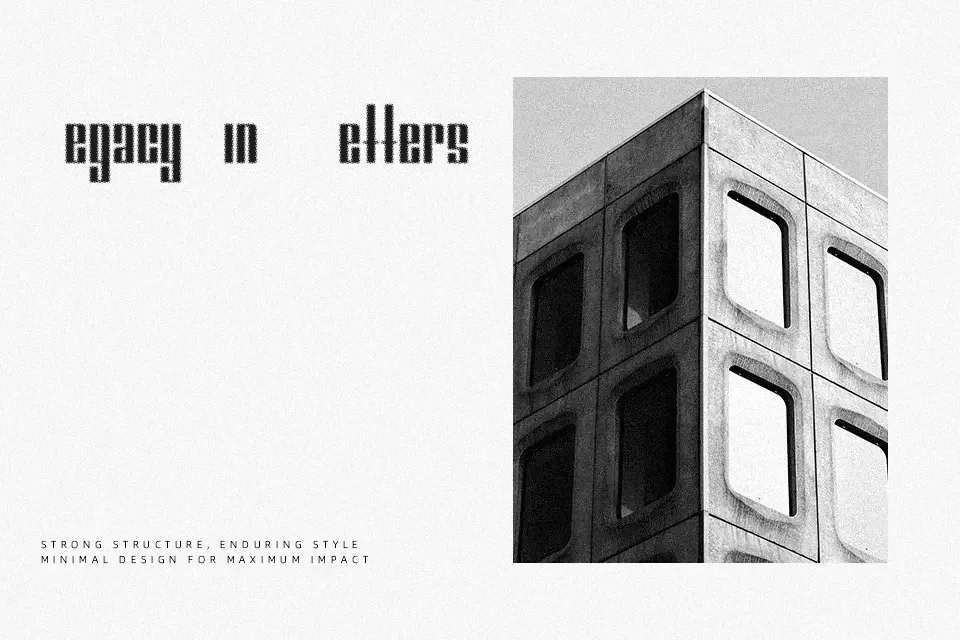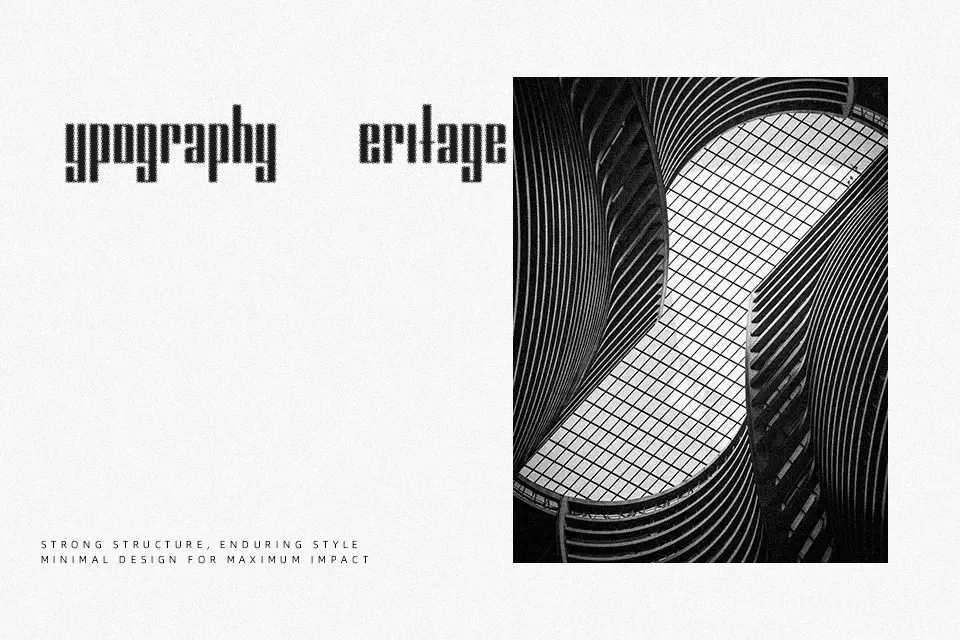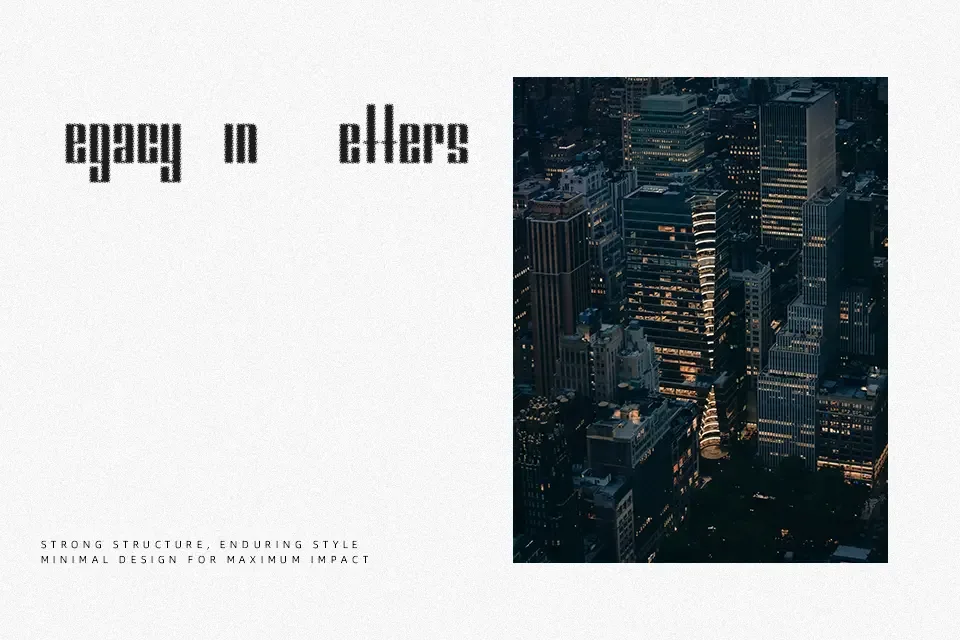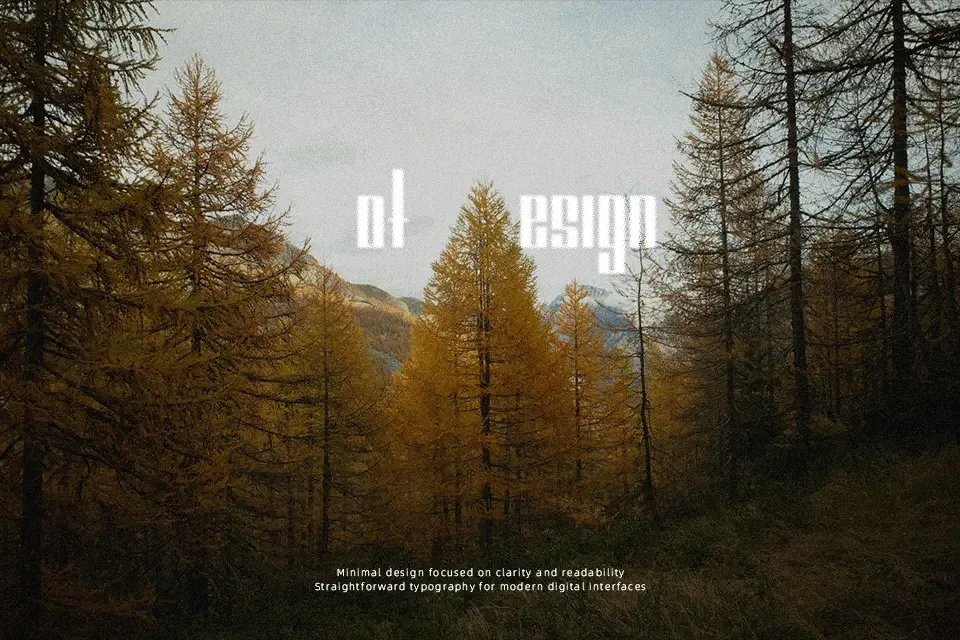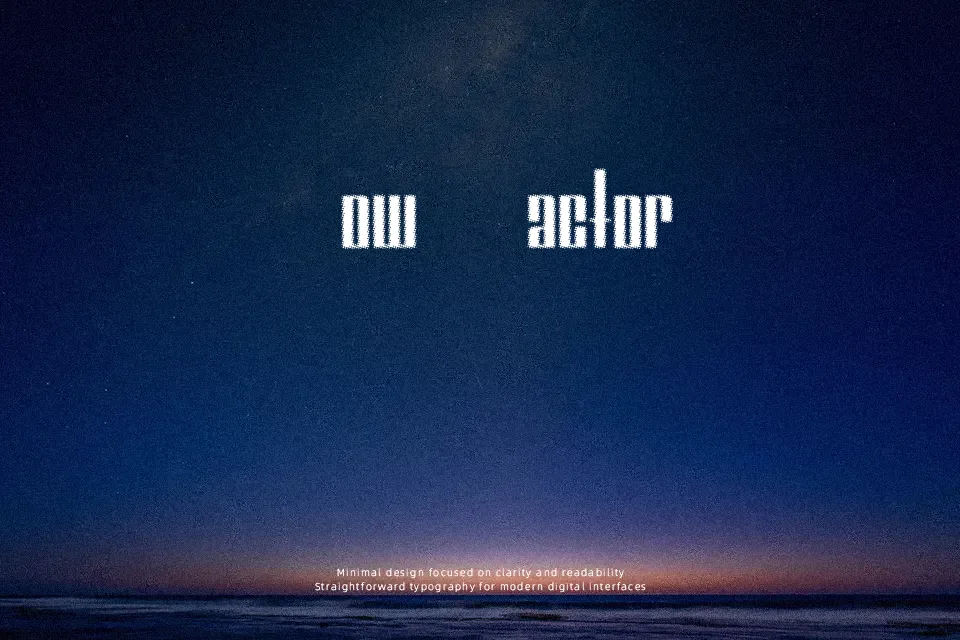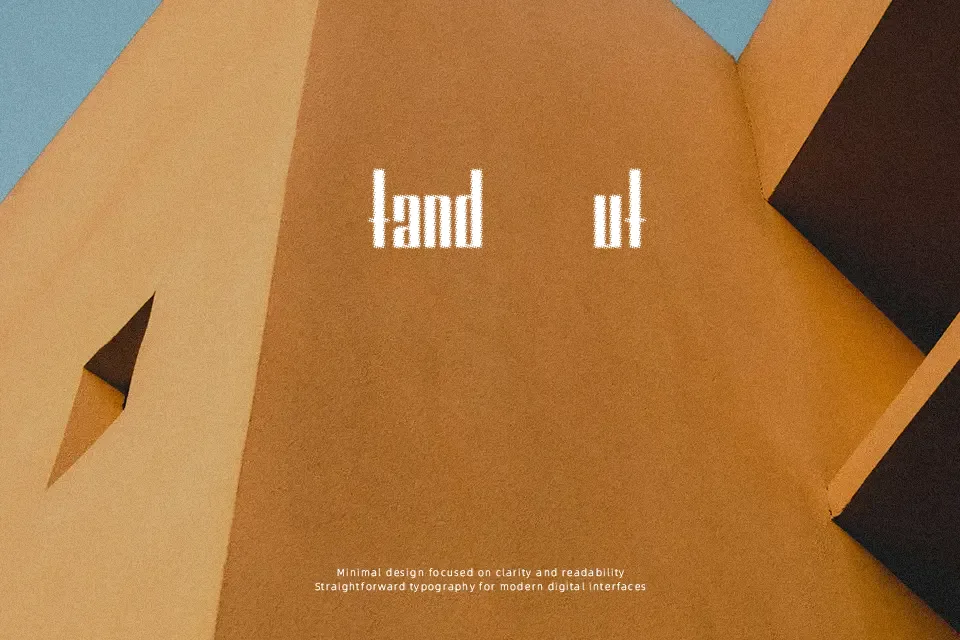
Trajma Font
Trajma Font presents an aggressive, fragmented aesthetic rooted in condensed gothic proportions and distressed contours. Heavy vertical stems carry jagged, decaying edges that produce striking contrast against narrow character counters. Spacing remains intentionally compact, which reinforces strong structural coherence when letterforms assemble into commanding title treatments. This typeface performs exceptionally well across heavy metal album art, horror cinema titles, and industrial merchandise. The spacing helps maintain clarity in large headlines, but the abrasive degradation severely restricts legibility at smaller scales. Extended body text causes neighboring glyphs to blur together, making the design wholly unsuitable for dense editorial paragraphs or technical documentation.
Best For: heavy metal album covers, horror cinema titles, music festival posters, streetwear apparel graphics
Not Ideal For: continuous body text, mobile application interfaces, corporate reports, technical documentation
Perfect for film, headline, and music, with a bold and condensed style.